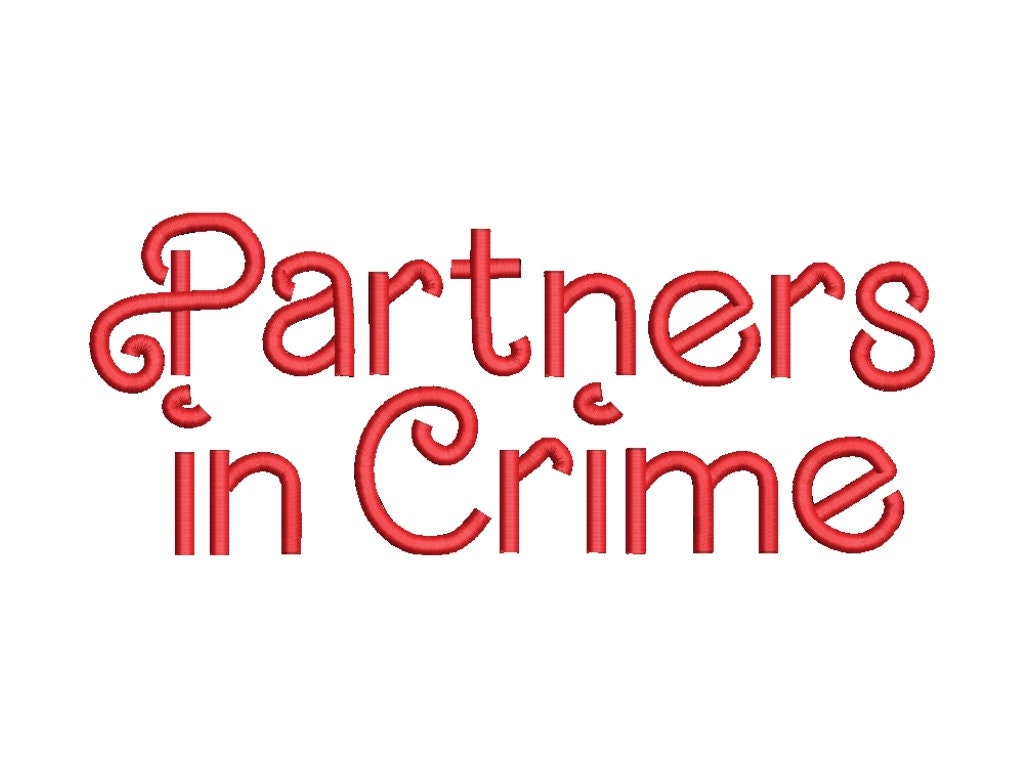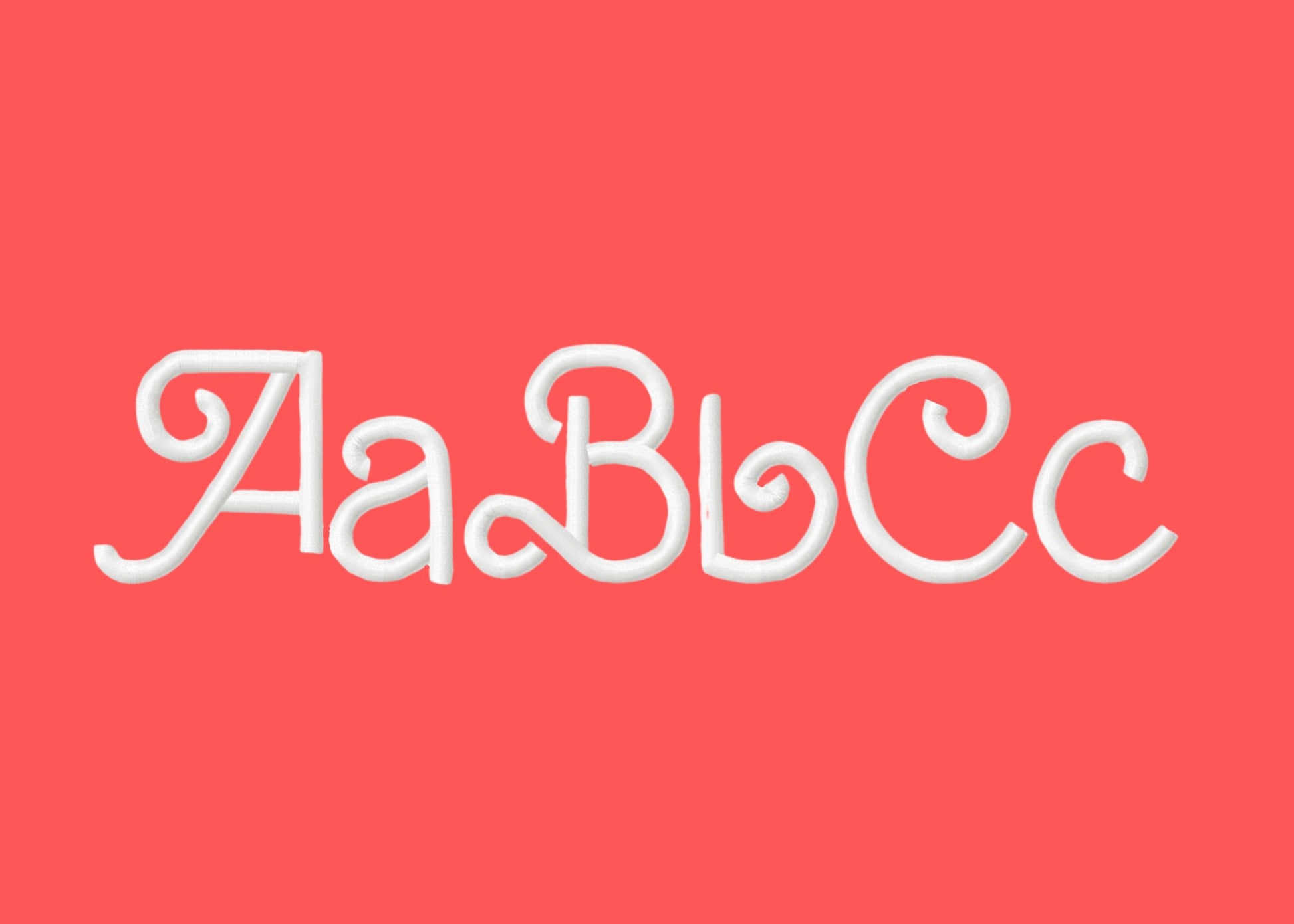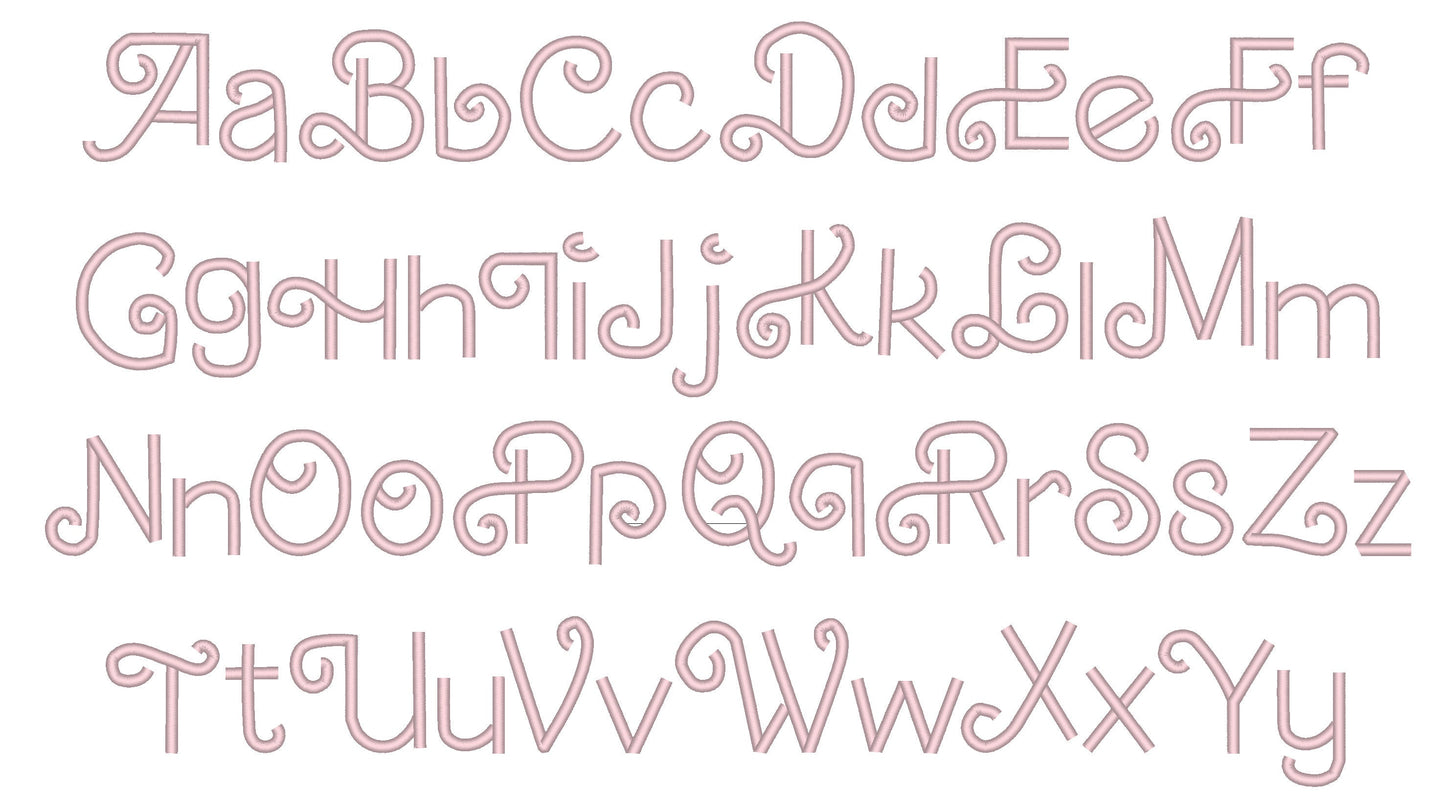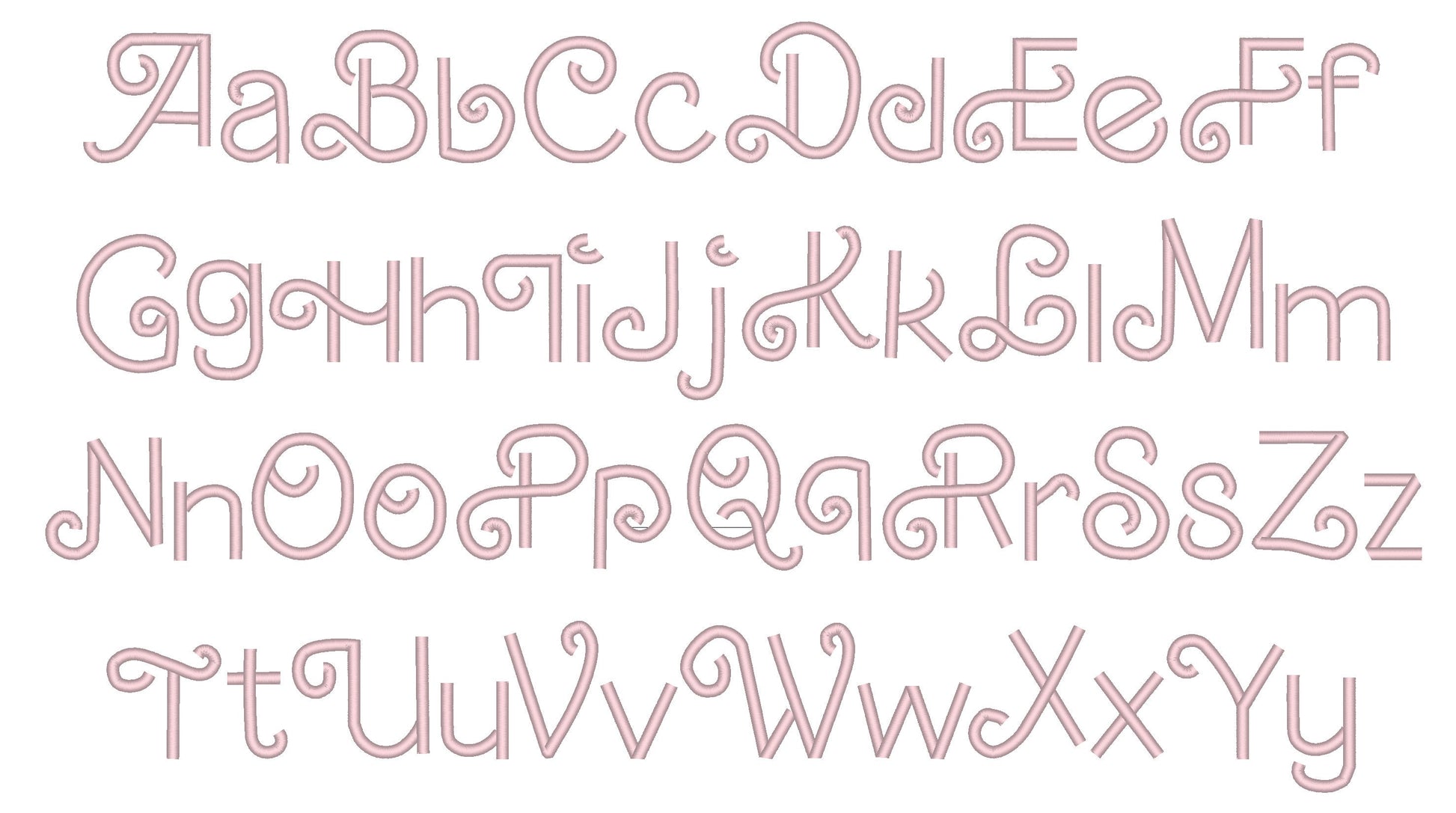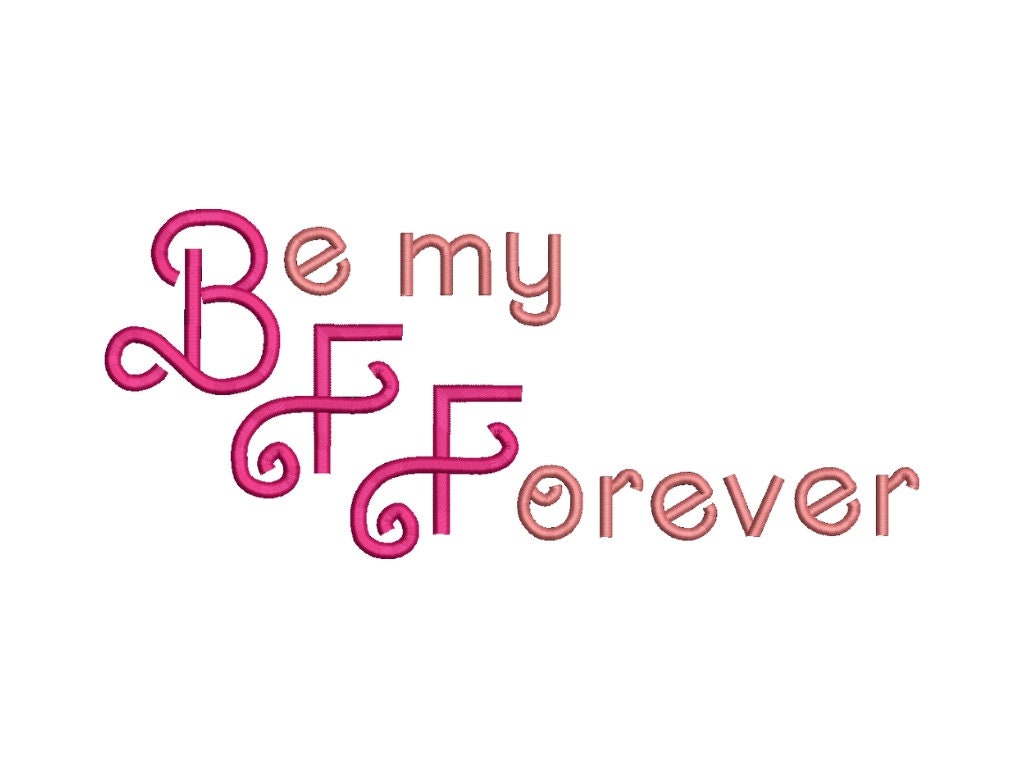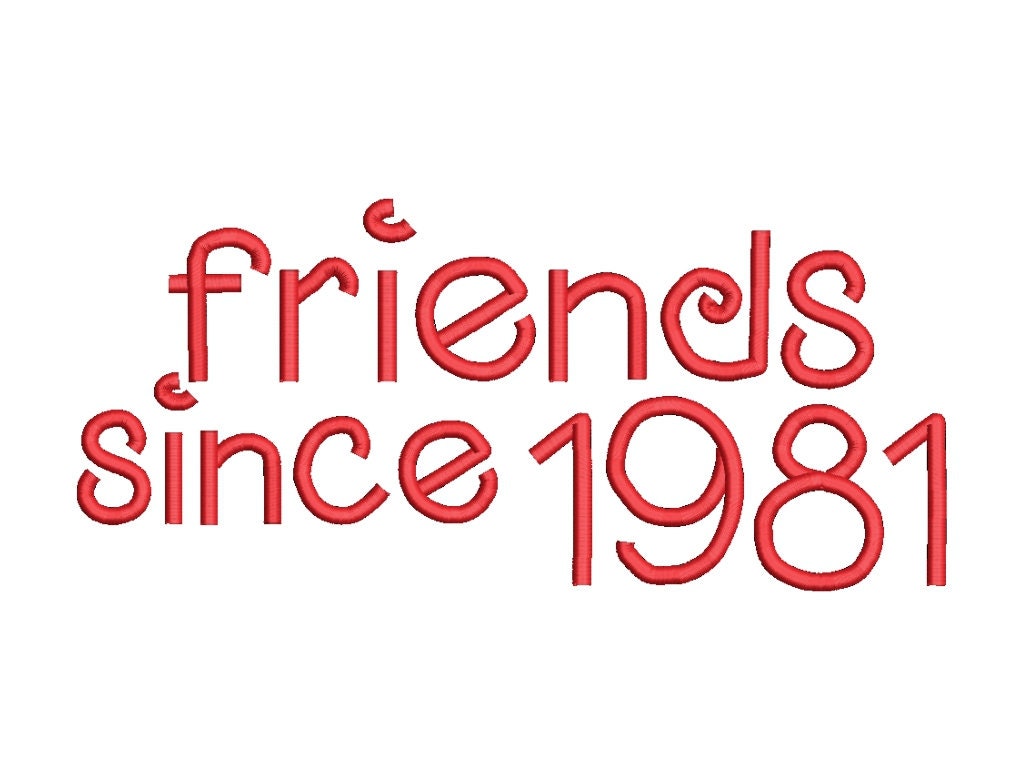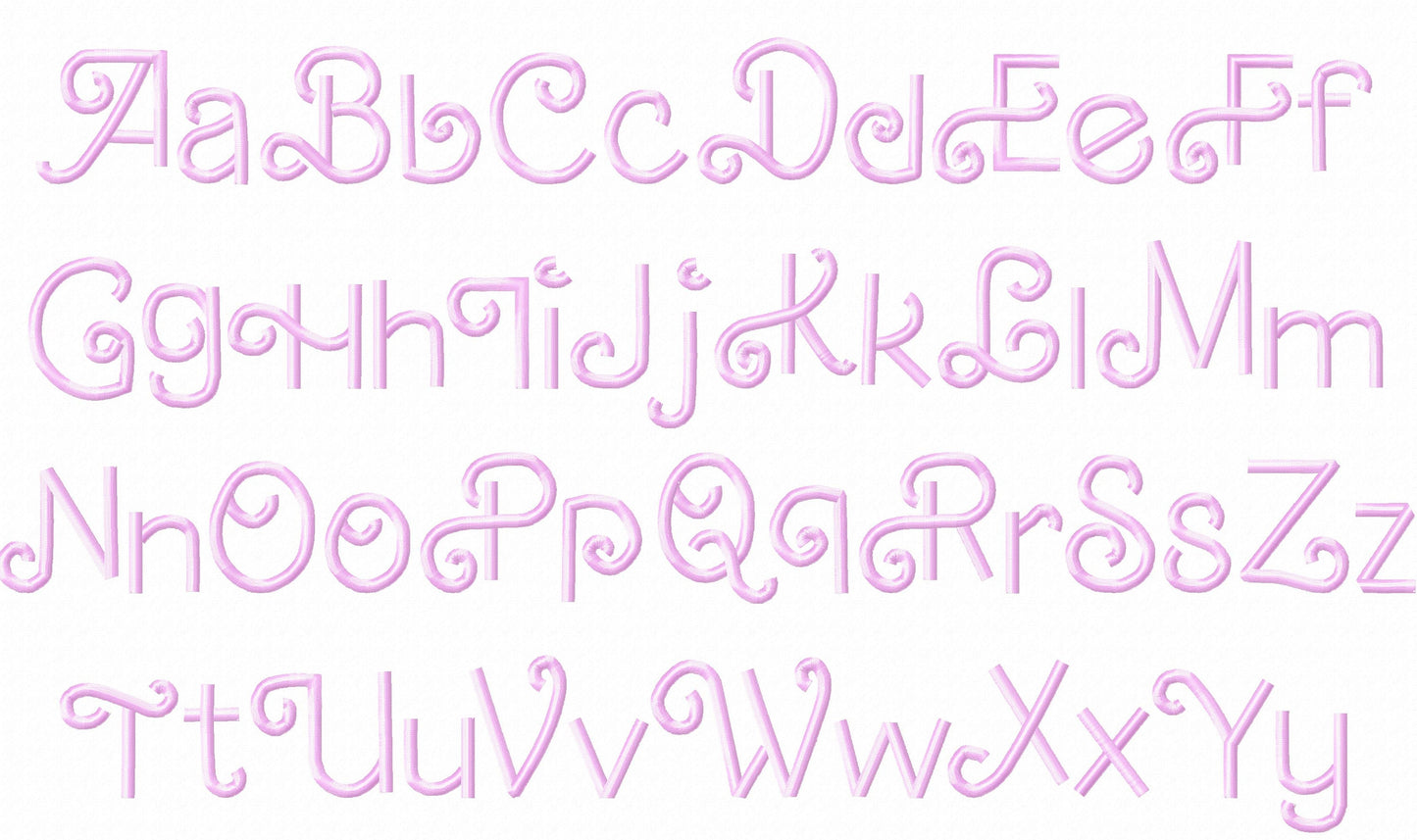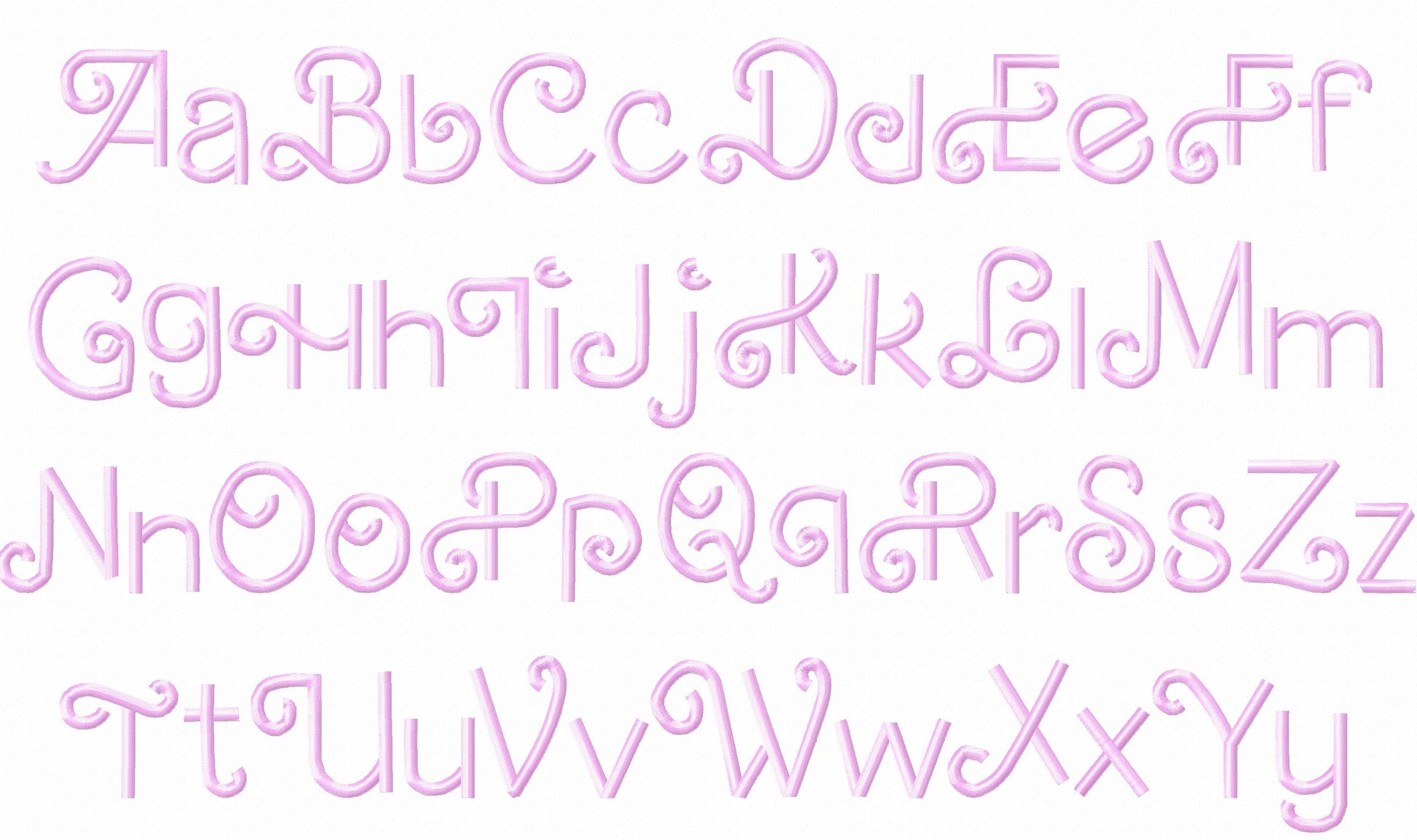
Or click to open the linkA retro handwritten script with swirls and curls, stitched as a satin stitch line. Sweet for Valentine's gifts, names and tiny monograms.